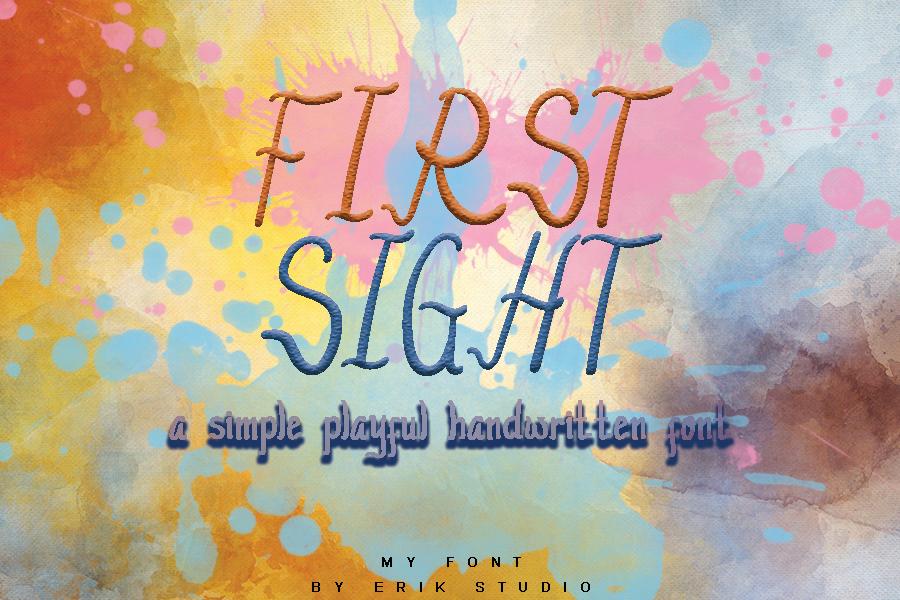
First Sight Font Description
Make your designs stand out with First Sight, a stylish and unique display font. It will look stunning on posters, thank you cards, quotes, greeting cards, logos, business cards and every other design which needs a creative touch.